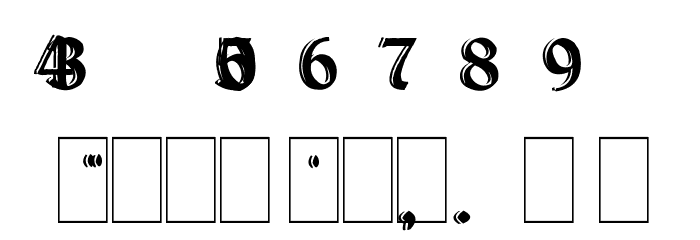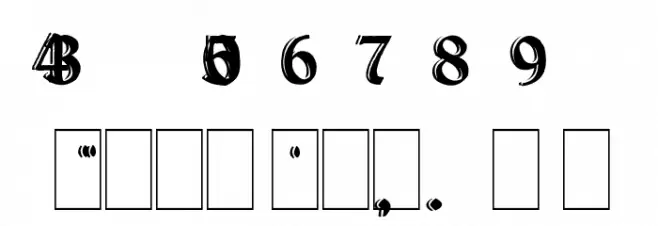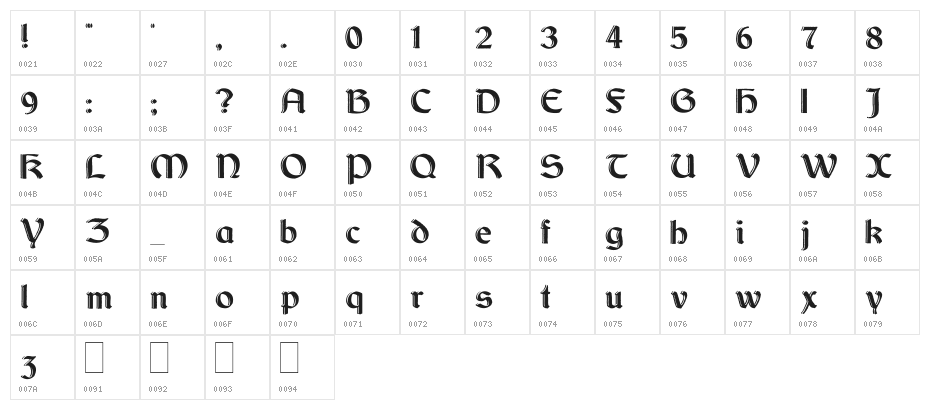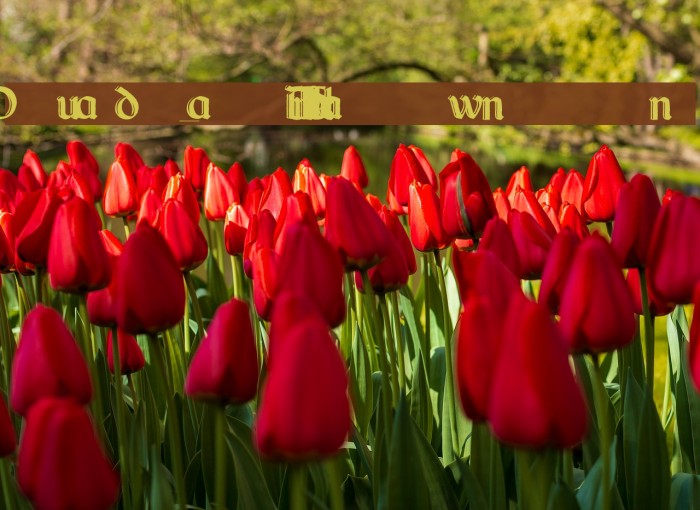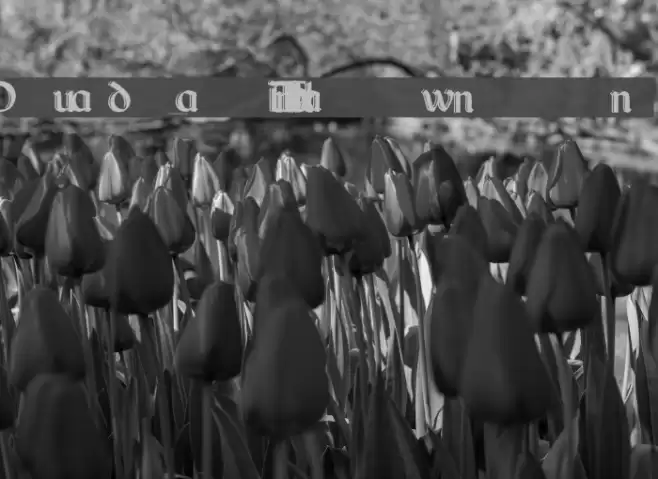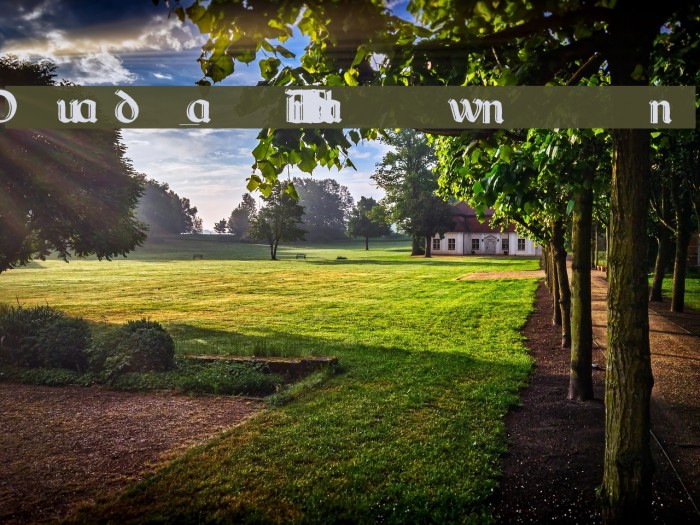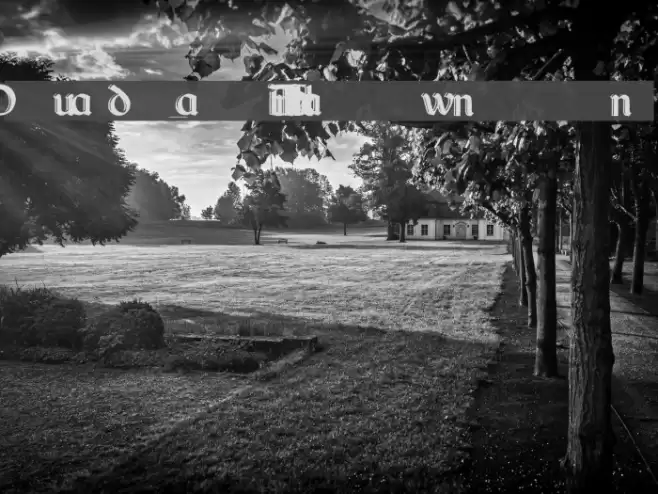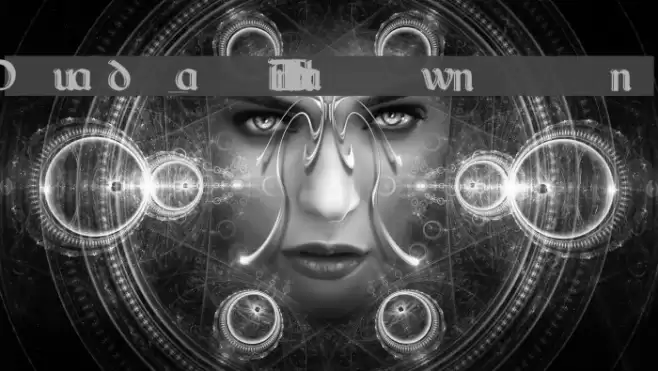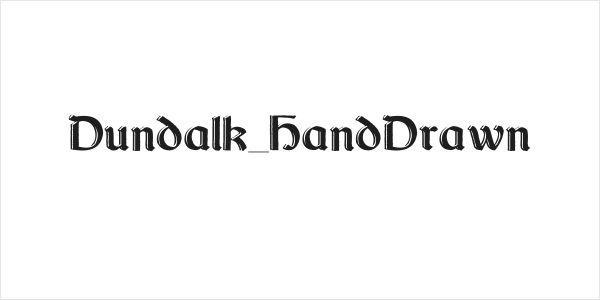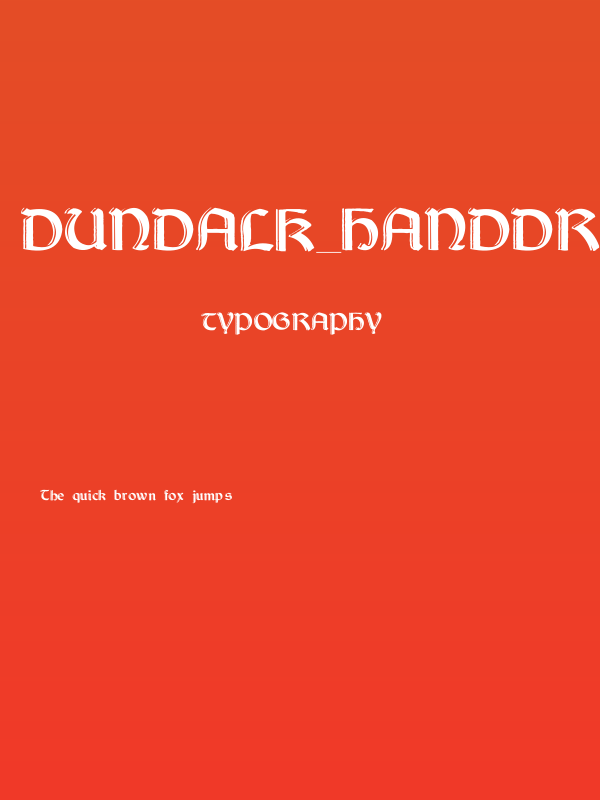
Dundalk_HandDrawn Font
Dundalk_HandDrawn Description
This font features a distinct hand-drawn style with a decorative flair, reminiscent of vintage calligraphy. The characters are bold and exhibit a unique blend of thick and thin strokes, creating a high contrast that adds to its visual appeal. The uppercase letters are particularly ornate, with intricate details that give them a sense of elegance and sophistication. The lowercase letters maintain a consistent style, offering a harmonious balance with the uppercase set. Numbers and special characters are equally stylized, ensuring a cohesive look across all elements. This font is ideal for projects that require a touch of classic charm and artistic expression.
| Overall Style | Vintage, Decorative |
| Proposed Projects | Perfect for wedding invitations, vintage-themed posters, artistic branding, and decorative headlines. |